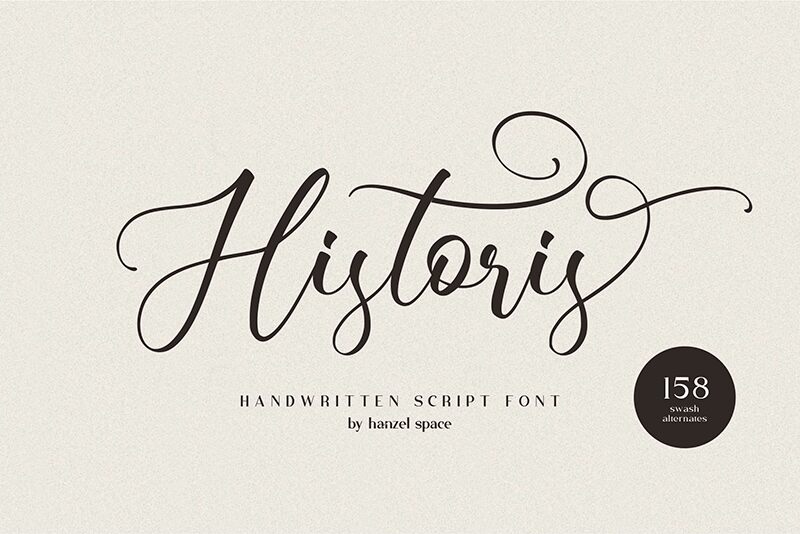
Historis
Historis font is a brilliant calligraphy font designed by Hanzel Space.
A modern and stylish handcrafted signature font thatll make your audience swoon and enhance your projects. Every stroke and curve was created to capture the essence of modernity and style. This gorgeous and stylish font can be used for a host of different content needs and projects. Ideal for social media posts and ads, printed quotes, t-shirt designs, packaging, or even as a modern text overlay to any background image. Rellington Handwritten Font includes Multilingual Options to make your branding globally acceptable.
Standard Ligatures
Stylistic Sets
Numerals and Punctuation